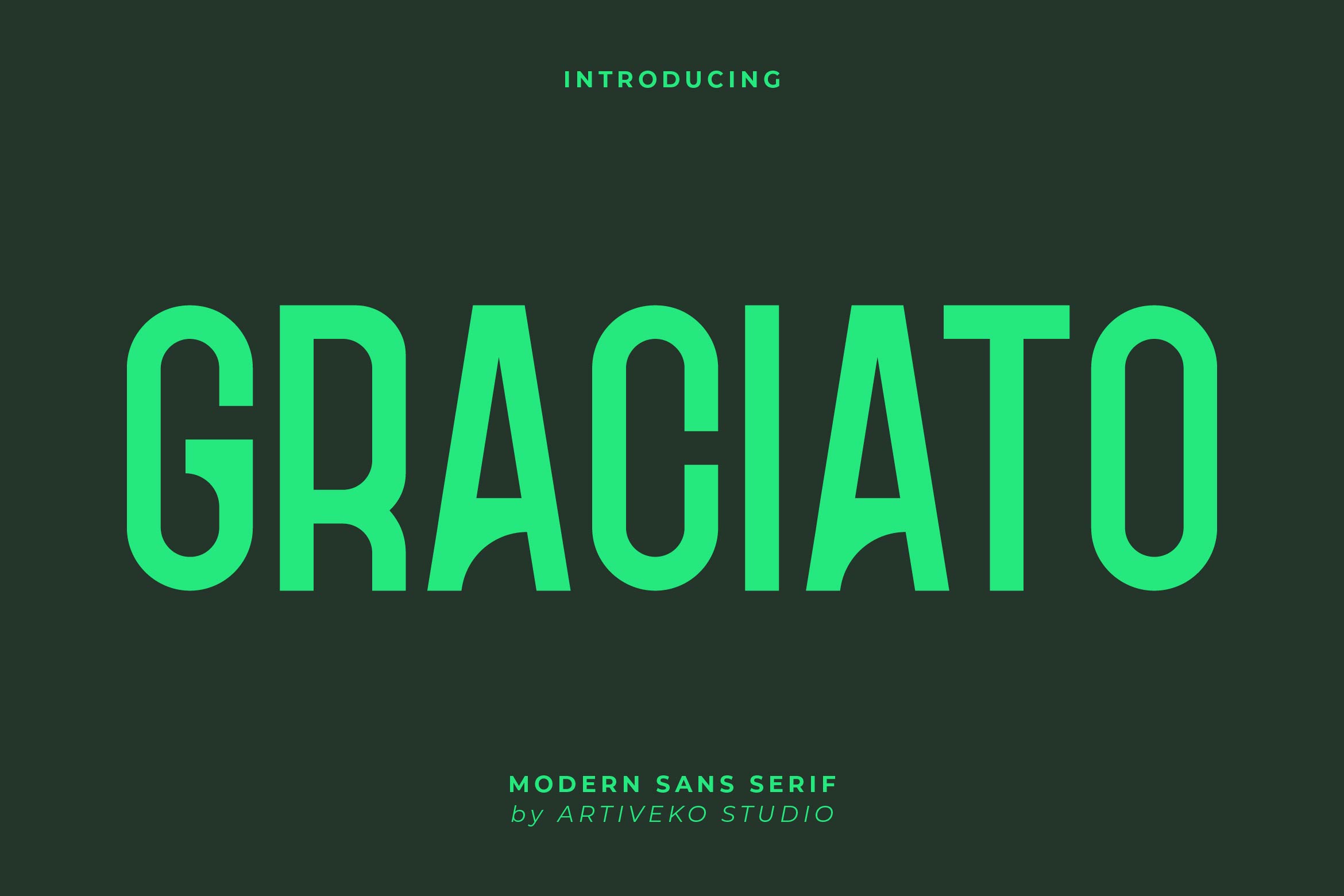
- Graciato Creative Sans Font
Graciato is a clean and elegant sans serif font designed to deliver clarity and modern sophistication to your typography. Featuring smooth curves, geometric proportions, and well-balanced letterforms, Graciato works beautifully across branding, editorial layouts, packaging, social media graphics, and website design.
Its versatile design ensures excellent readability in both large headlines and small text applications, making it ideal for fashion, tech, lifestyle, and creative projects. Graciato brings a timeless yet contemporary feel that elevates your visual identity effortlessly.
The font includes uppercase and lowercase letters, numerals, punctuation, multilingual support, and stylistic alternates for added customization.
Bring grace and precision to your designs with Graciato — the sans serif font that combines modern aesthetics with timeless elegance.